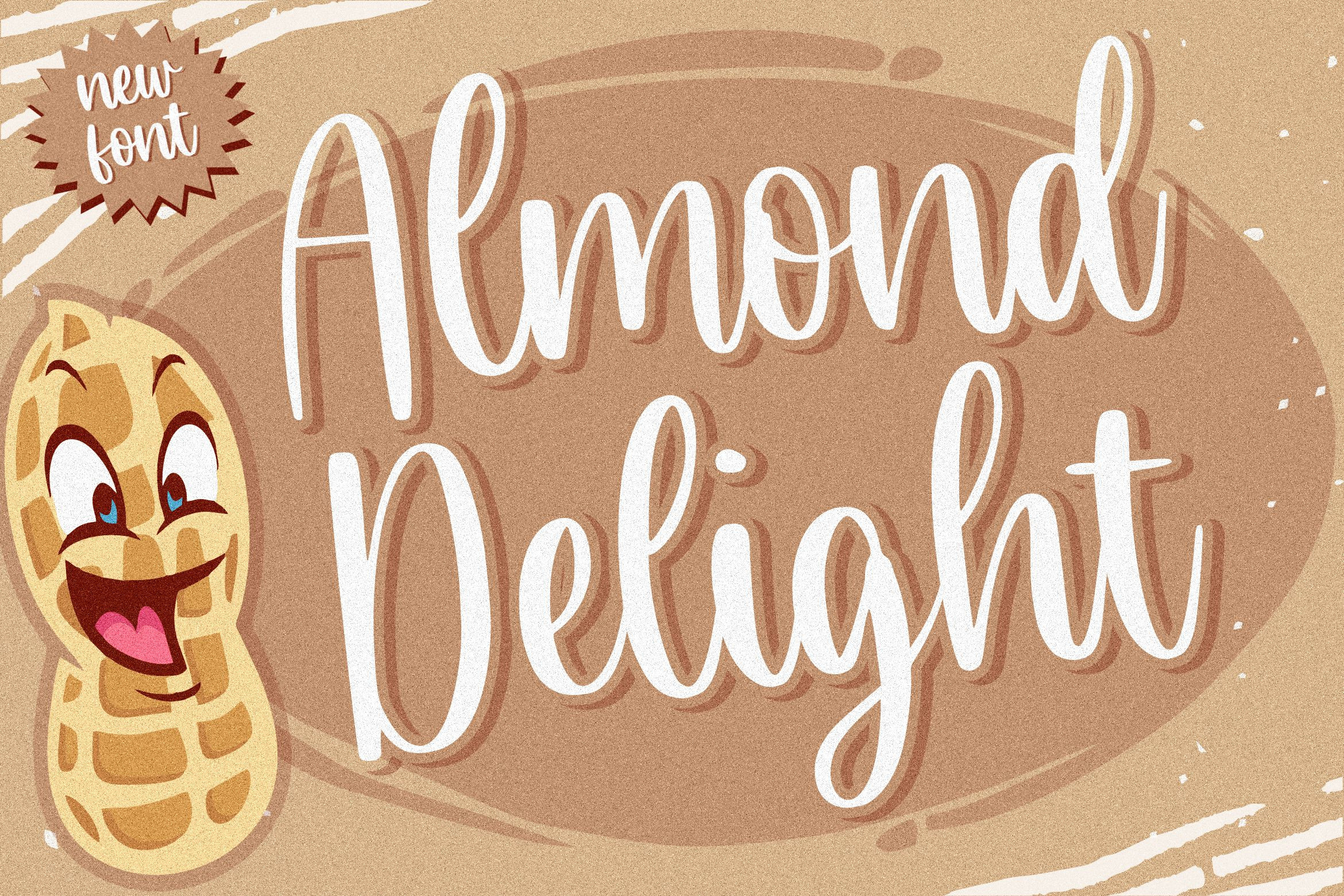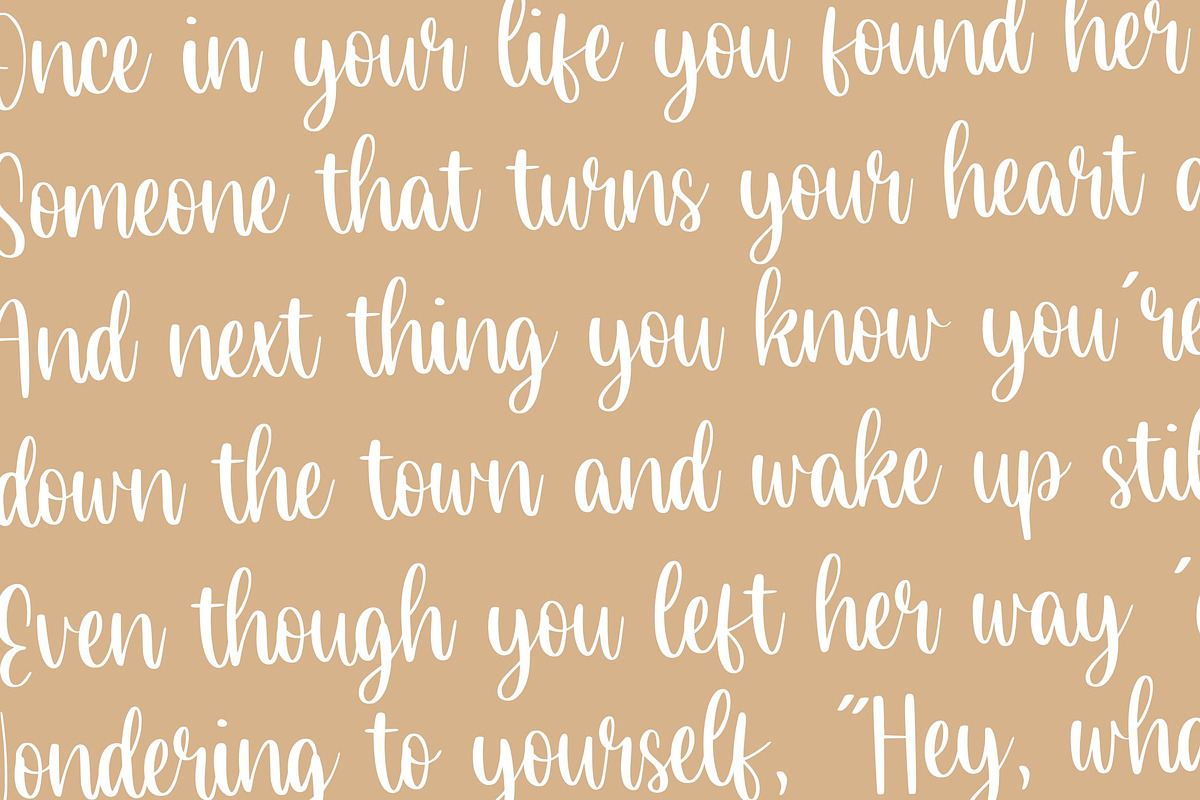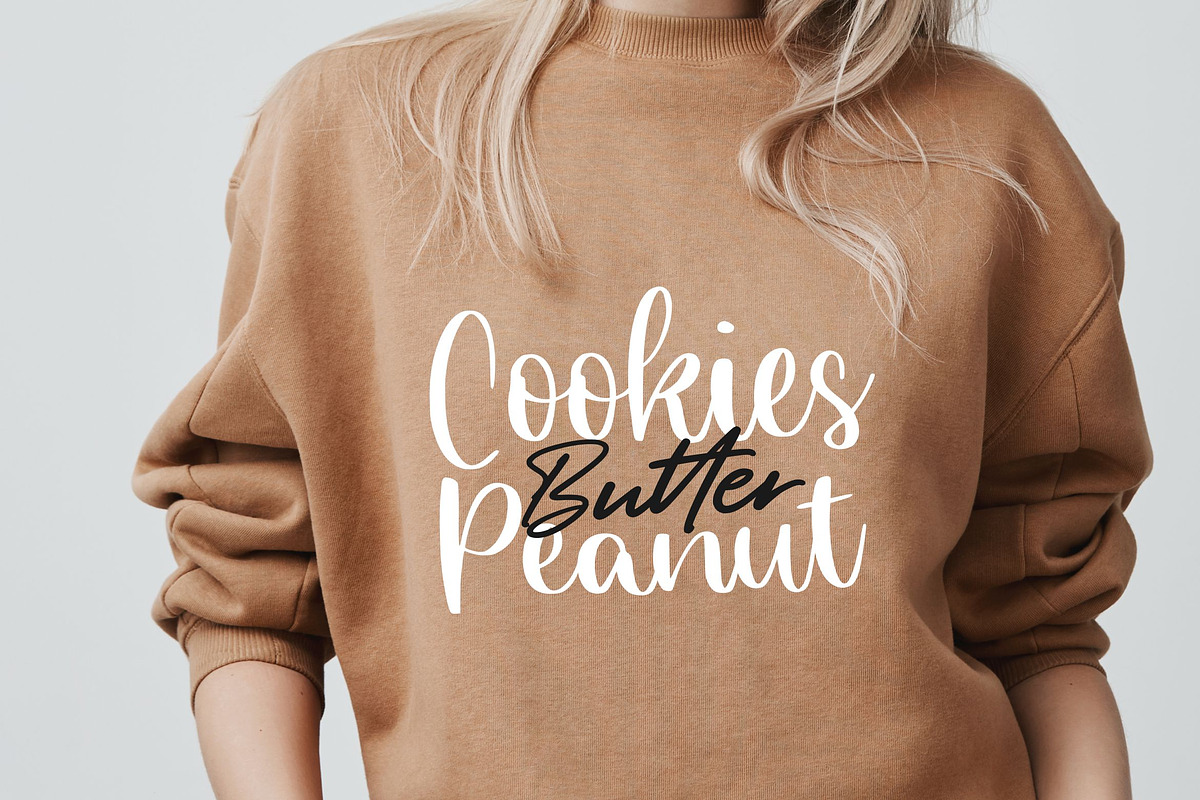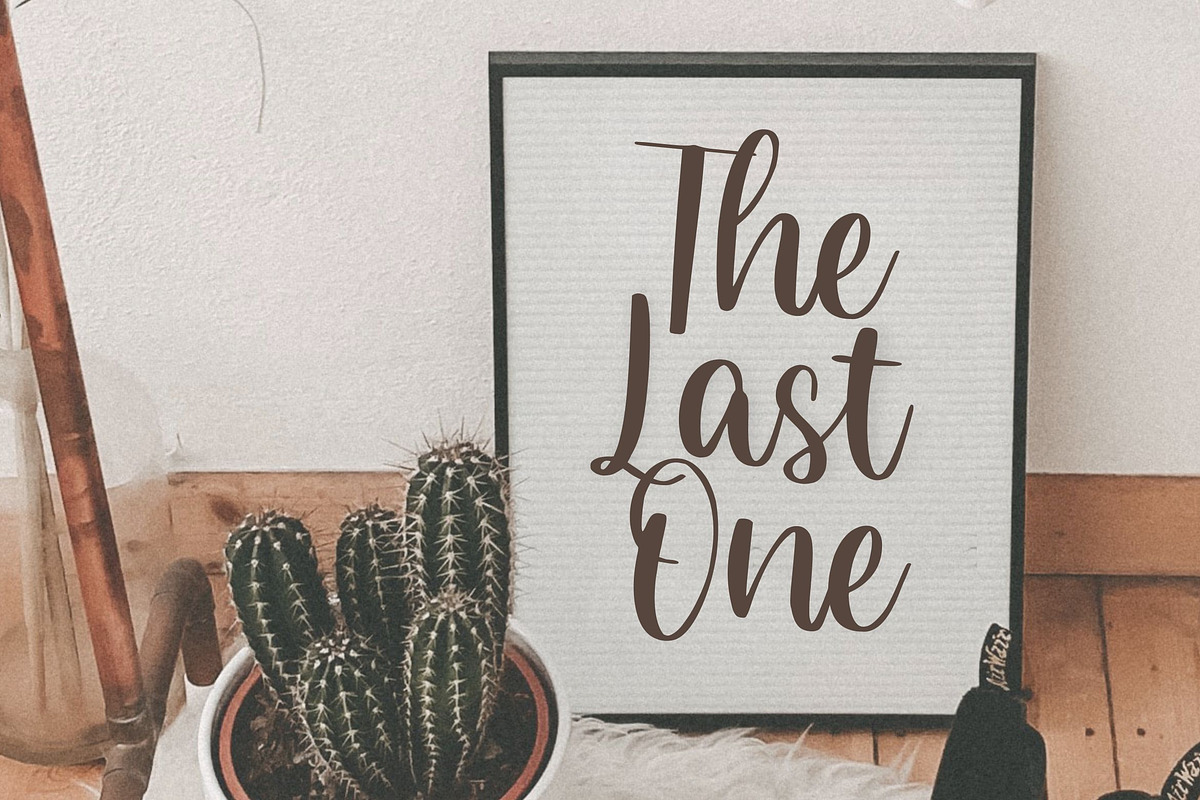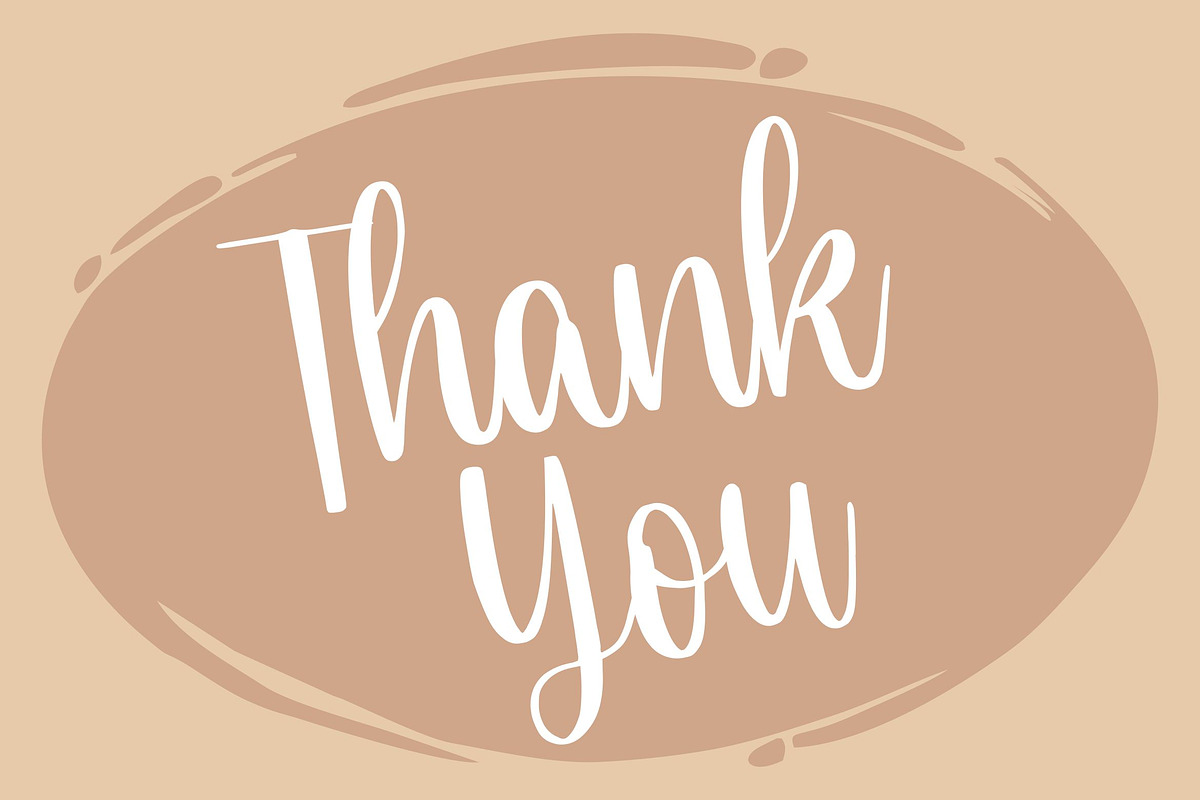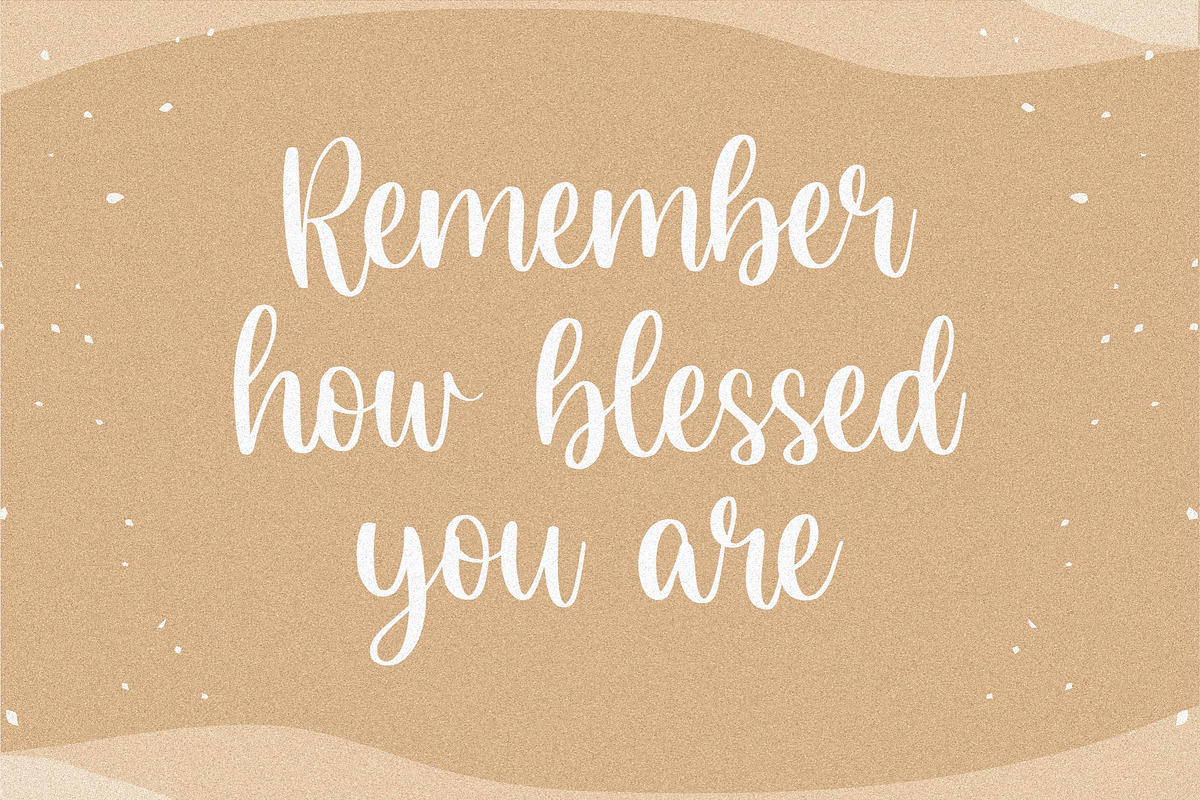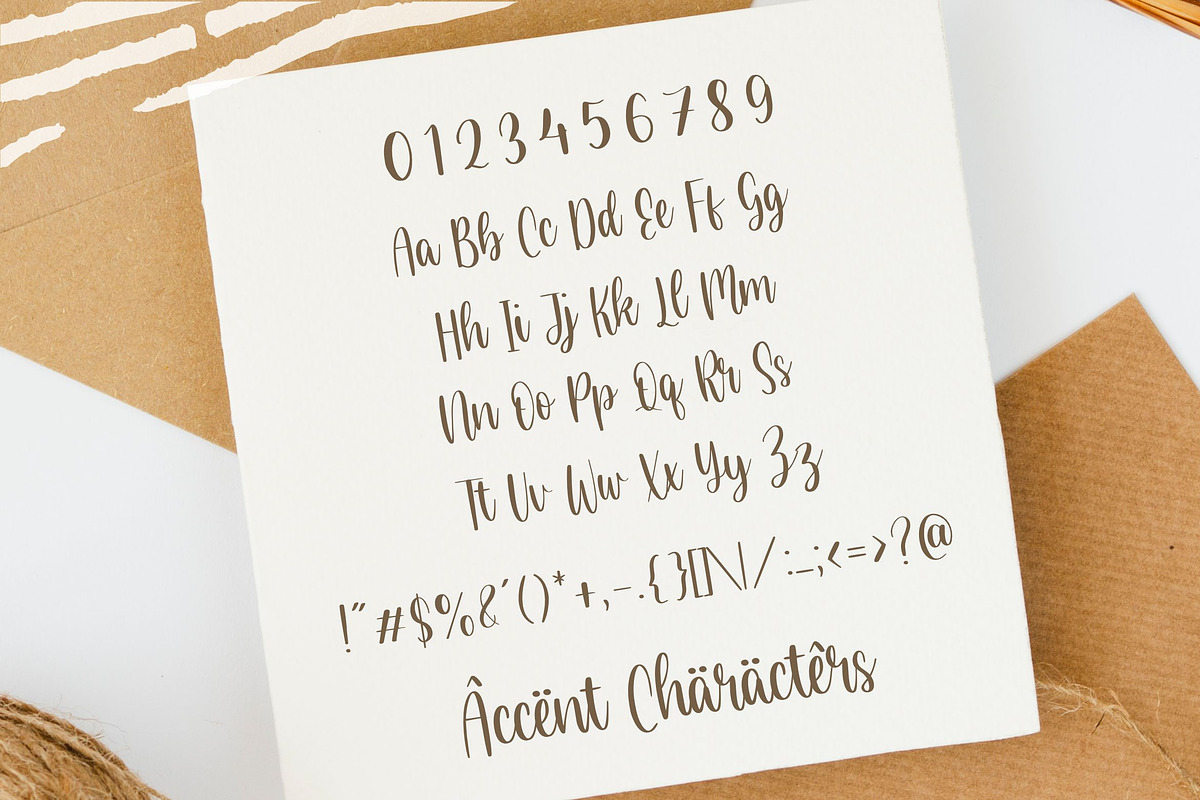
Almond Delight - Handwritten Font
Proudly Present, Almond Delight Font
Almond Delight is an incredibly distinct, delicate and timeless handwritten font. Fall in love with its incredibly versatile style and use it to create gorgeous wedding invitations, beautiful stationary art, eye-catching social media posts, and much more!
- also multilingual support